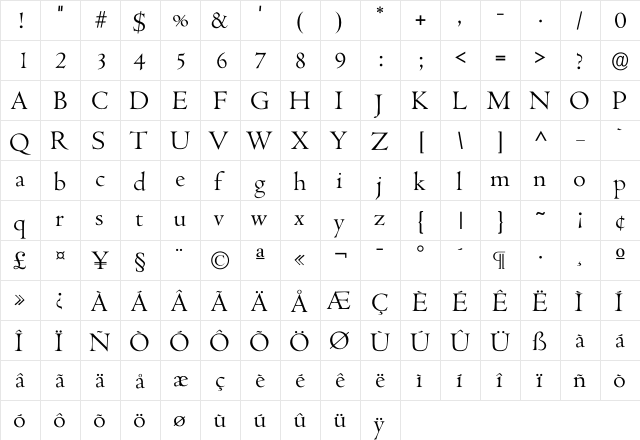
Centaur Light
Design Context for Centaur Typeface
Centaur takes a measured approach to typography — its balanced proportions and neutral character make it a reliable workhorse for both digital and print work. Its slender proportions lend an understated elegance to any composition.